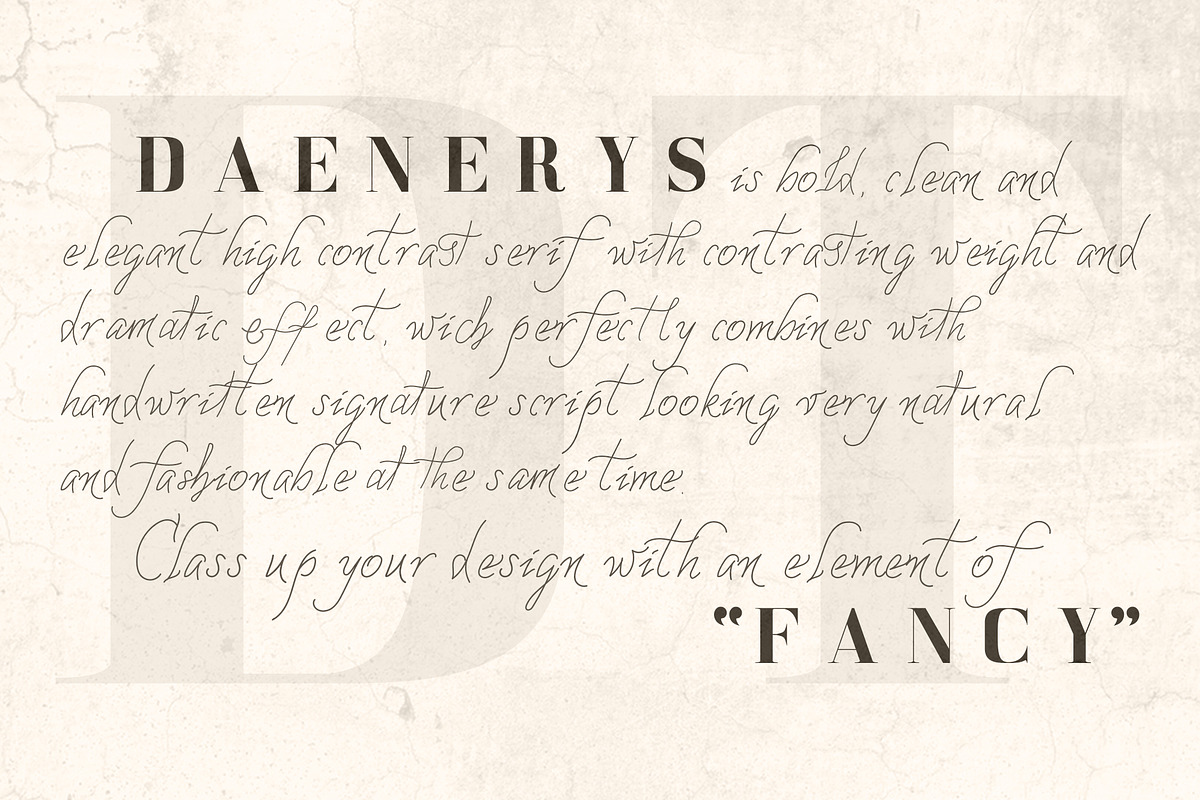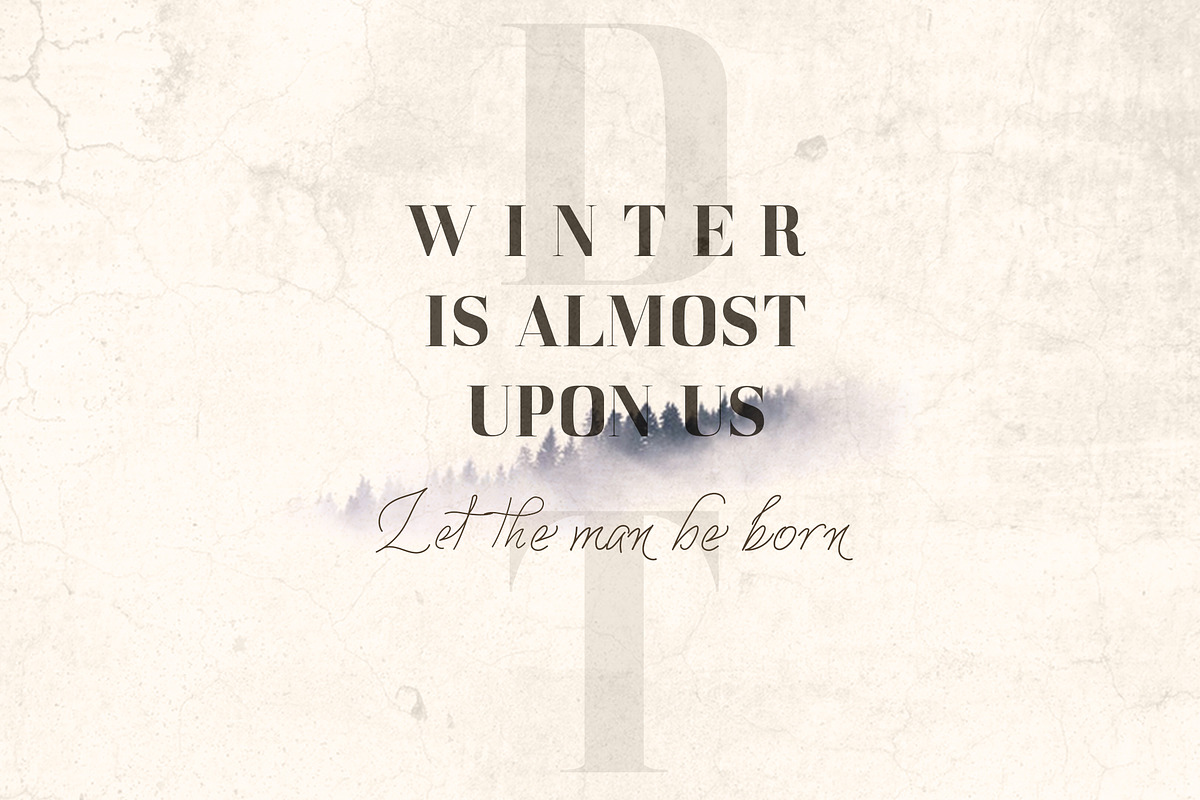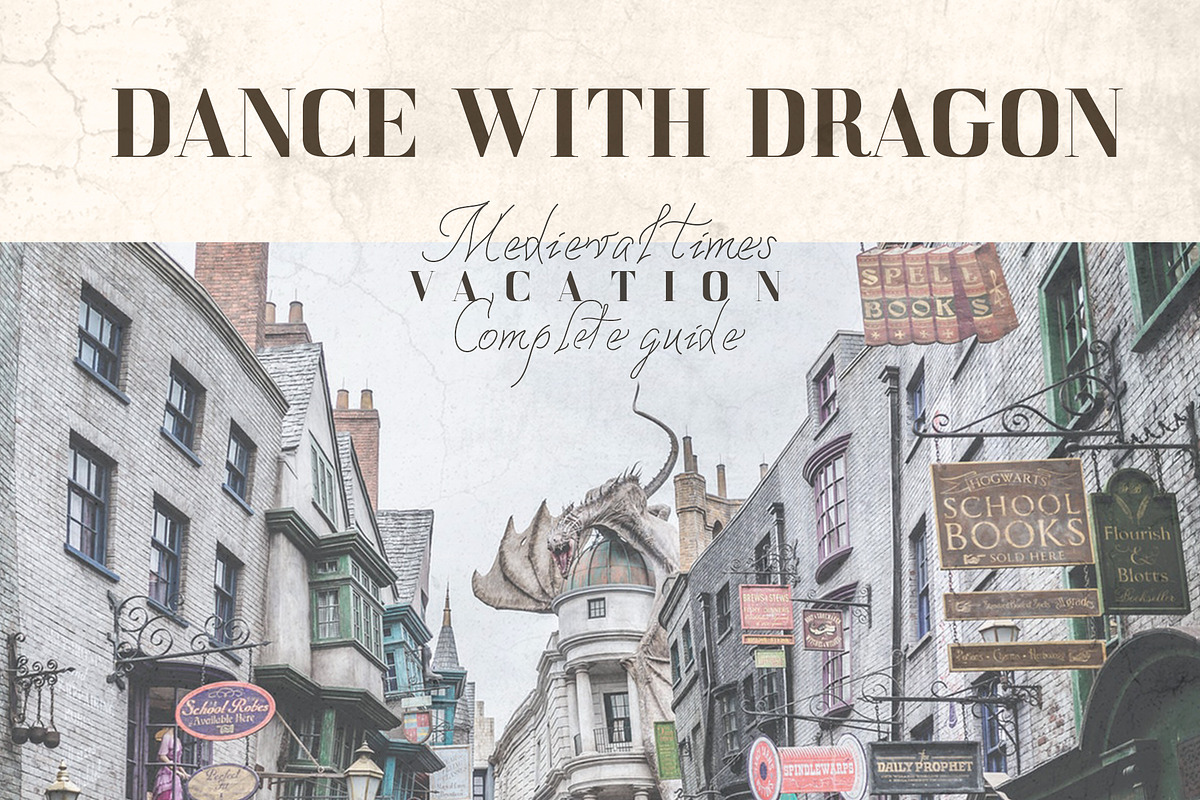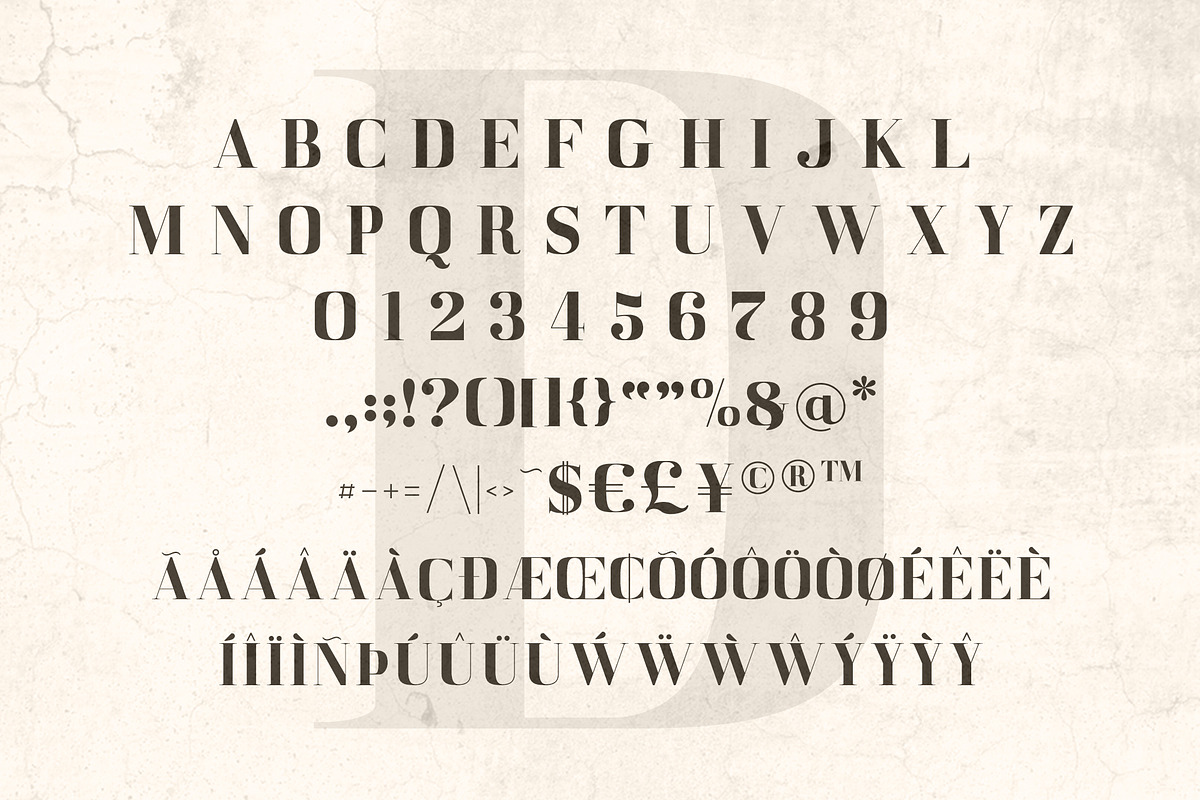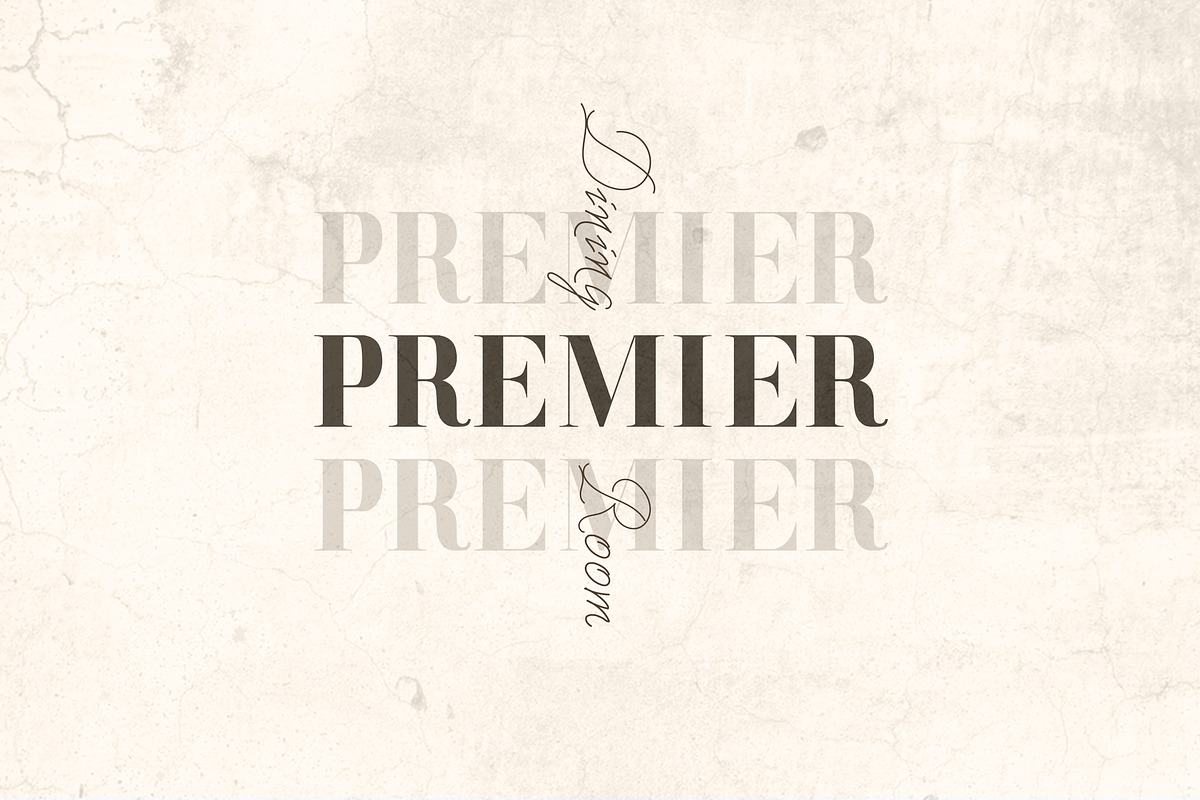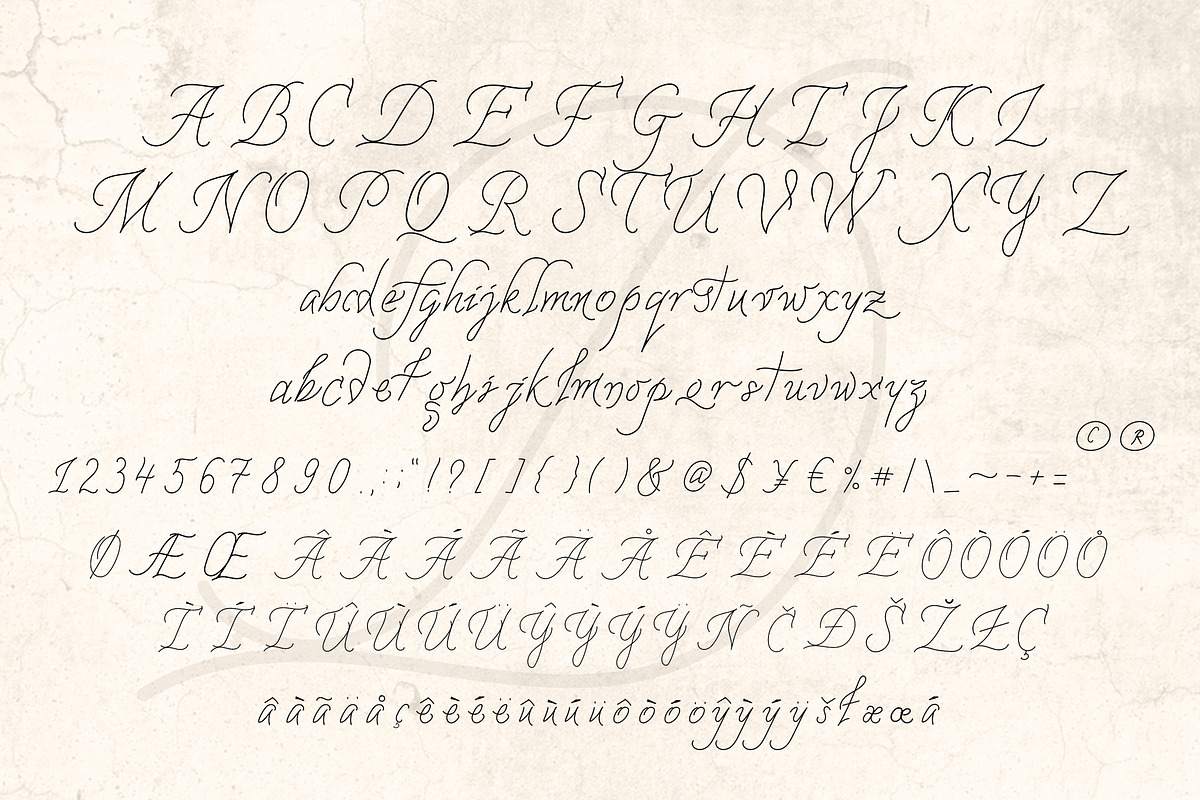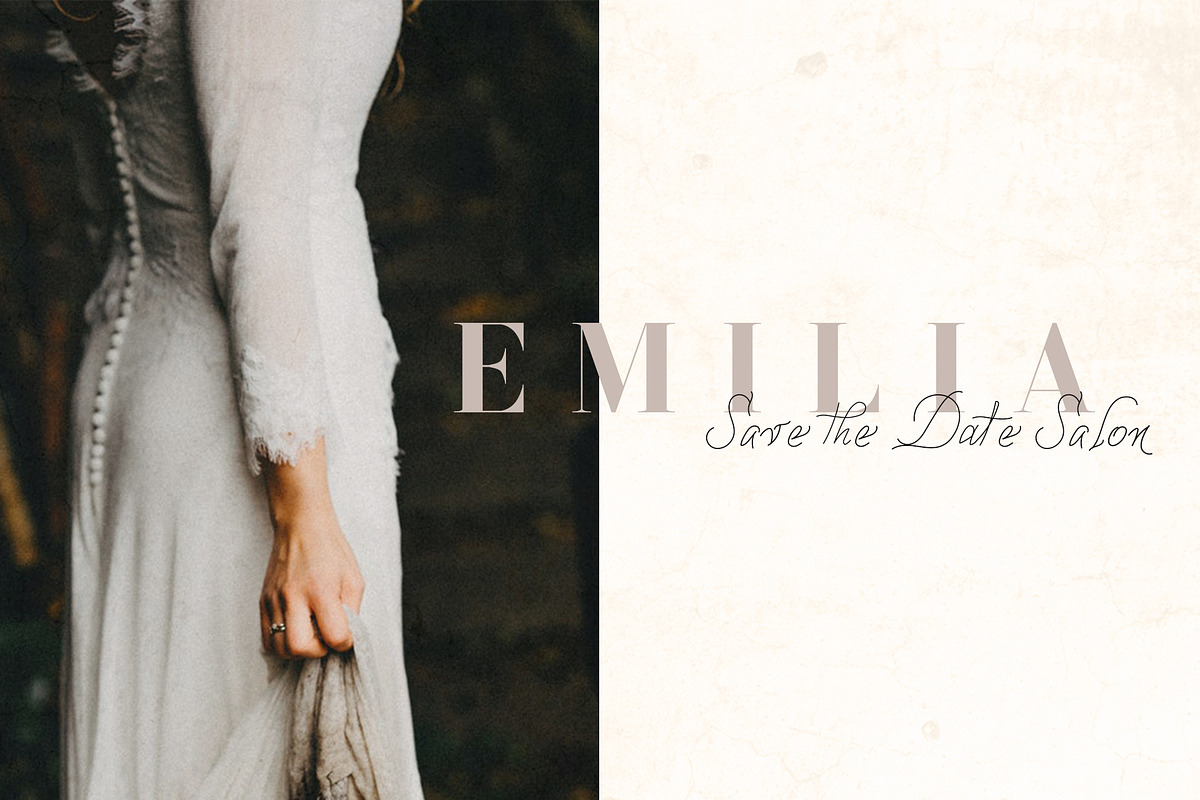
DAENERYS Serif and Script Font Duo
Hello! Are you waiting for appearance of the new season of Game of Thrones? We know that the struggle for the Iron Throne soon begins. Perhaps you will agree with me that Daenerys as the most kind-hearted character is worth to be the winner. So impressed with a great and talented play of this brave and honest woman i dedicate to her my new font.
DAENERYS is new, bold, clean and elegant high contrast serif with contrasting weight and dramatic effect, wich perfectly combines with handwritten signature script looking very natural and fashionable at the same time. So use them together and class up your design with an element of FANCY.
DAENERYS font duo reflects the warmest feelings and helps you to create special and touching typographical design for every day or the happiest day in life. It is really new, universal and modern font .
DAENERYS serif and script combination is perfect for multiple contexts. Works great in posters, logos, headlines, packaging, advertising, branding and so much more. This font will easily help you to create the best romantic or elegant design. DAENERYS script will help you to make your projects trully handwritten realistic and natural. As this font looks close to a natural handwritten script, there are not only uppercase and lowercase characters, numbers and punctuations, but also alternates and ligatures.
DAENERYS serif and script font duo has multiligual support (French, German, Italian, Norwegian, Portuguese, Spanish, Swedish, Swiss German).